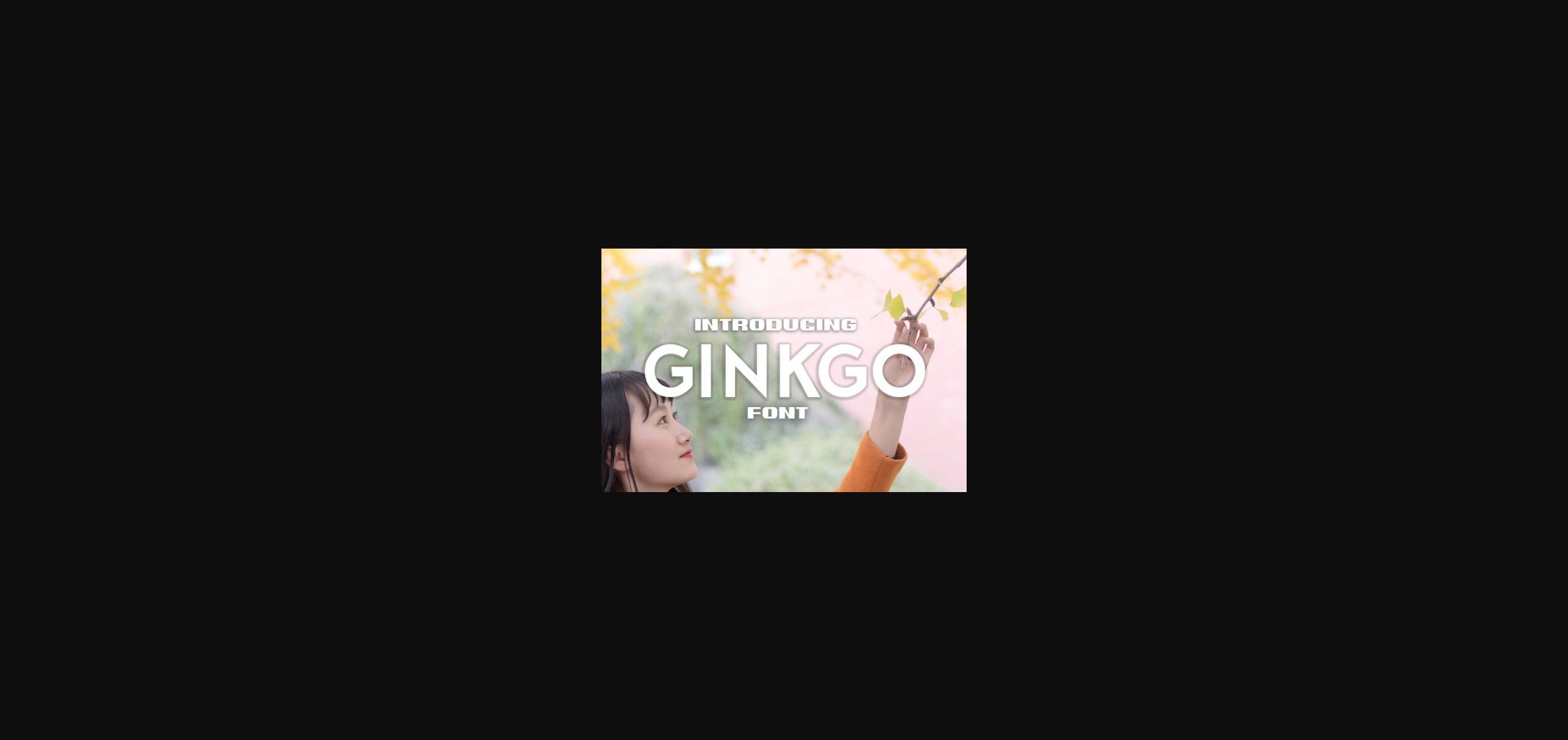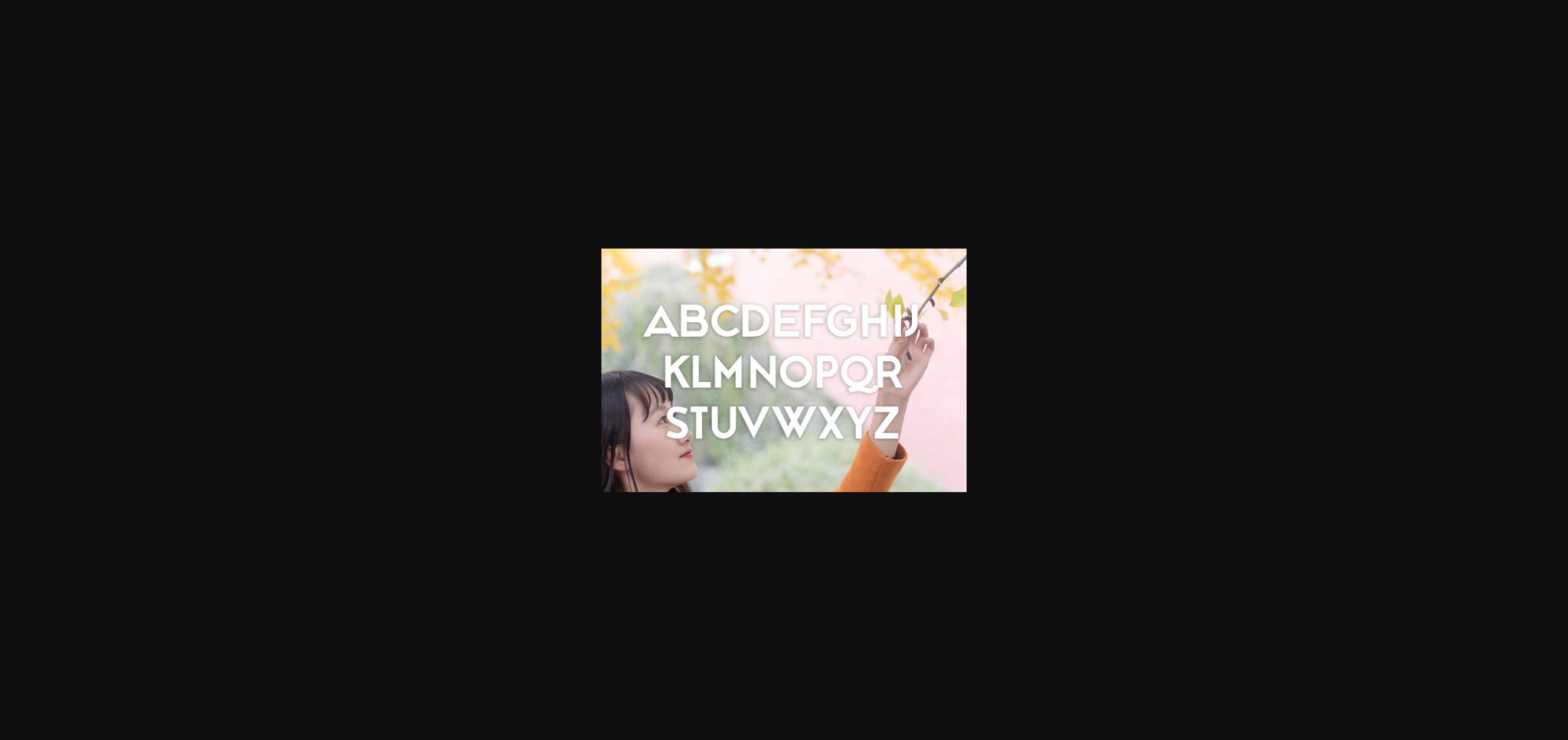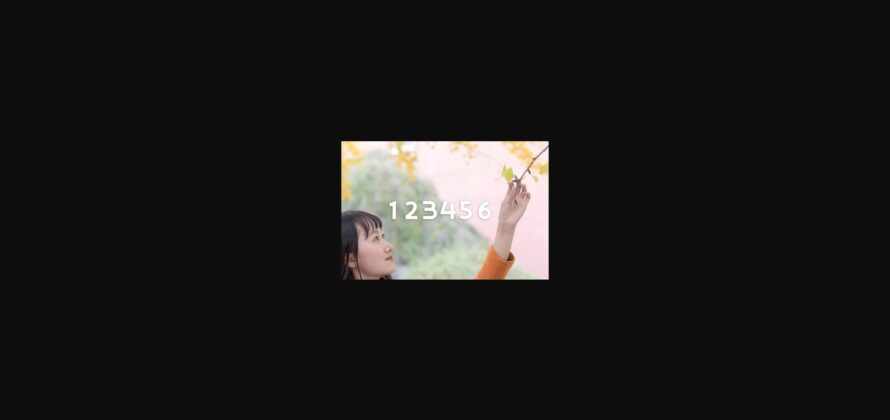
HomeSans Serif FontsGinkgo Font Sans Serif Fonts Ginkgo Font FacebookXPinterestWhatsApp 1 of 5 ... Ginkgo Font Poster 2... Ginkgo Font Poster 3... Ginkgo Font Poster 4... Ginkgo Font Poster 5... About Ginkgo Font Ginkgo is an awesome Sans Serif typeface that will fit any of your designs. Use this font on posters, shirts, and banners. DOWNLOAD NOW People also explored Hello Killyna Font Tesselates Font Sallim Font Threesixty Font Magica Chesse Font Southfield Font Hole Flow Font Diva Devoted Font Roberto Font 418 0 TagsGinkgoGinkgo Font Previous articleOversized FontNext articleSubmaster Font LEAVE A REPLY Cancel reply Comment: Please enter your comment! Name:* Please enter your name here Email:* You have entered an incorrect email address! Please enter your email address here Website: Save my name, email, and website in this browser for the next time I comment. Personal Use Free Unsteady Overseer Personal Use Free Read more about this font Geracella Personal Use Free Read more about this font Hello Sister Personal Use Free Read more about this font Bosk Personal Use Free Read more about this font BLOG Elegant Wedding Invitation Fonts – Handwritten & Script Fonts Elegant Wedding Invitation Fonts Your wedding day is one of the most important moments of your life, and every detail matters—including your invitation design. Our... Modern Sans-Serif Fonts That Brands Love in 2025 Transform Your Website: Elevate Your Typography with 7 Best Web Font Generators Free Fonts Risk: Why Free Fonts Can Be Dangerous for Designers